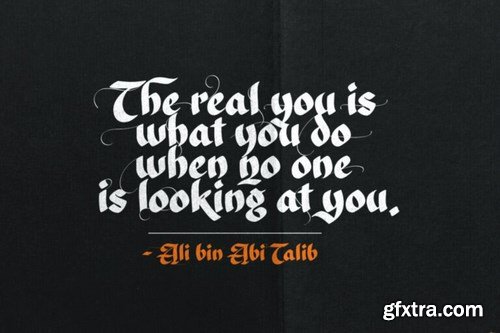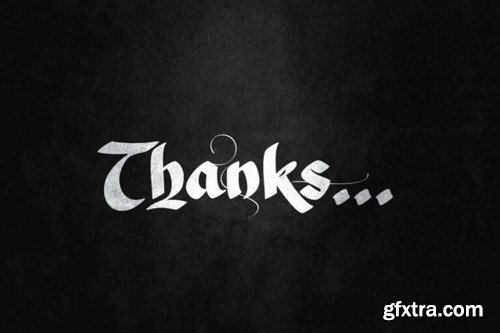
Toxide is a gothic font inspired by Celtic and uncial style. We give a unique touch so that this display font is very suitable for brands, logotypes, headlines, badges, video titles as well as for book and magazine covers.